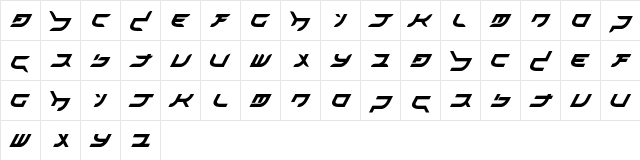
akihibara hyper Regular
Design Context for akihibara hyper
akihibara hyper is a composed and adaptable typeface that performs quietly and consistently across a wide range of design contexts.
Pro Tip: Use akihibara hyper in both headline and body roles to test its range before committing to a single application.